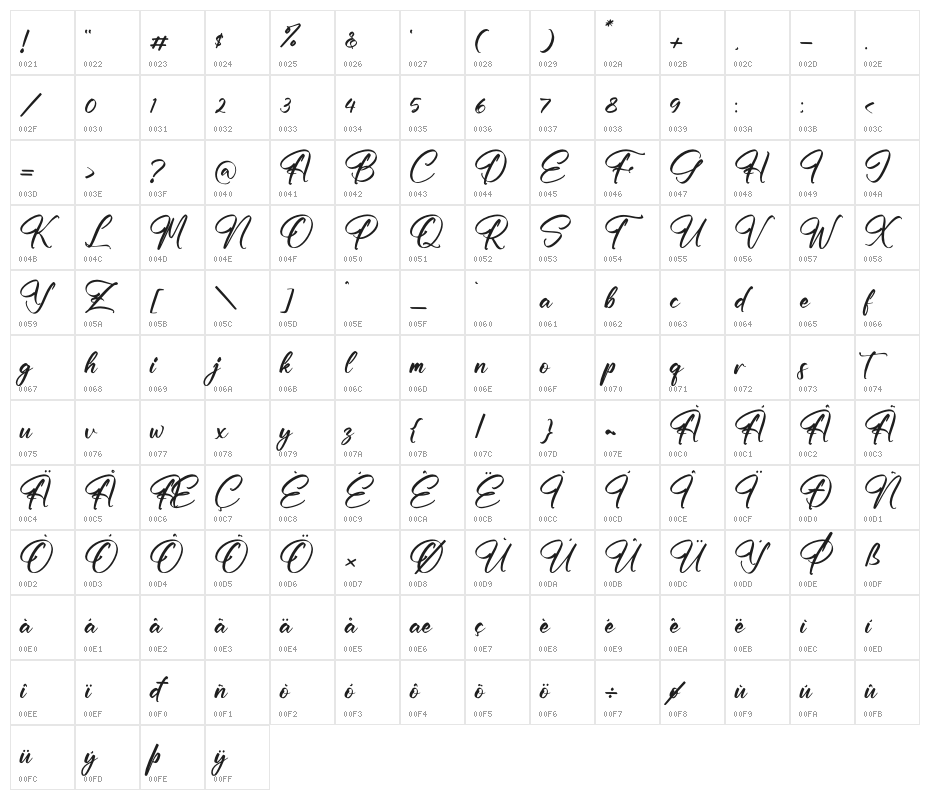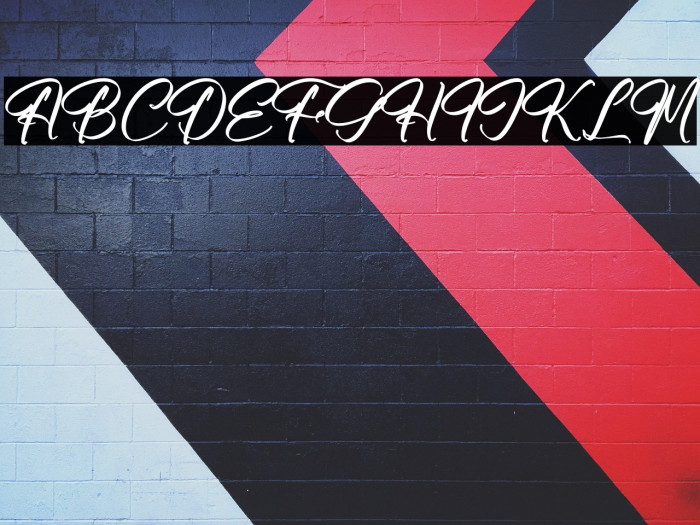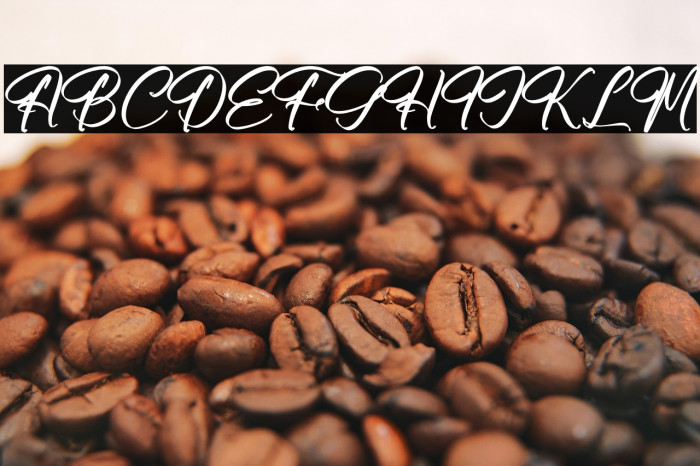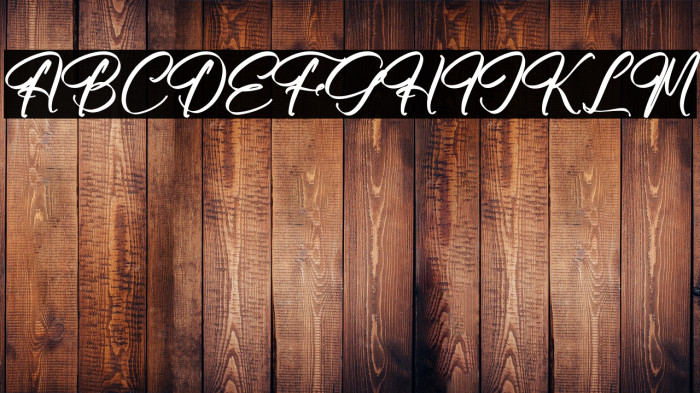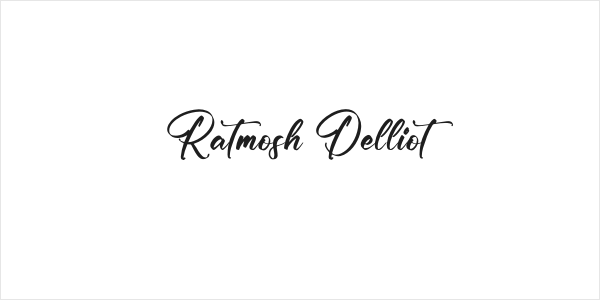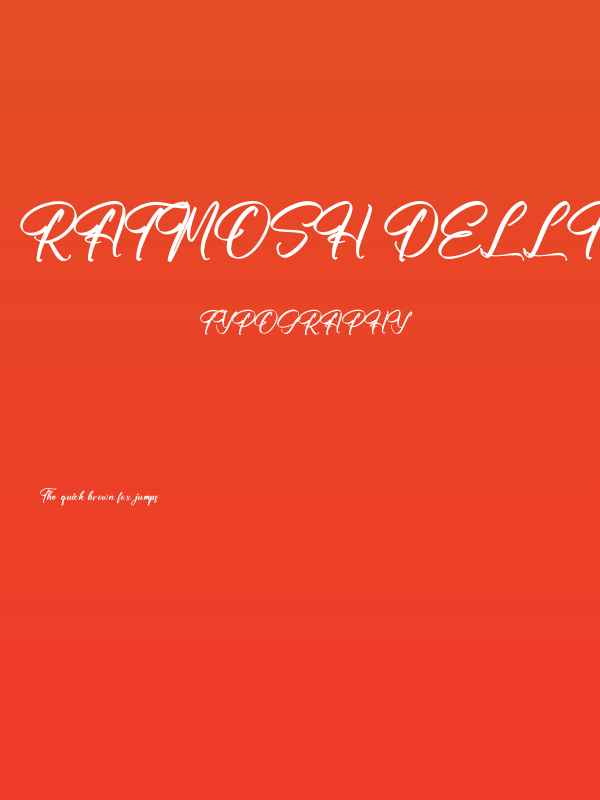
Ratmosh Delliot Font
Ratmosh Delliot Description
This font features a flowing, cursive style that exudes elegance and sophistication. The uppercase letters are intricately designed with smooth, connected strokes, while the lowercase letters maintain a consistent fluidity, enhancing readability. The numerals are bold and clear, complementing the overall aesthetic. Special characters are crafted with the same attention to detail, ensuring a cohesive look across all text elements. The font's design is perfect for projects that require a touch of class and refinement.
| Proposed Projects | Ideal for wedding invitations, luxury branding, personal signatures, and elegant stationery. |